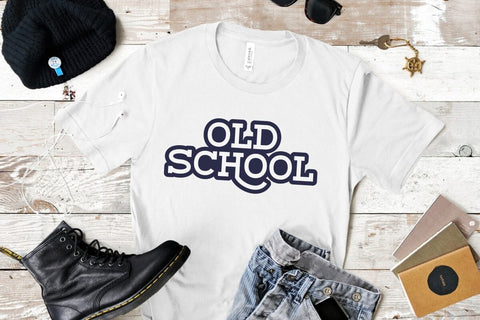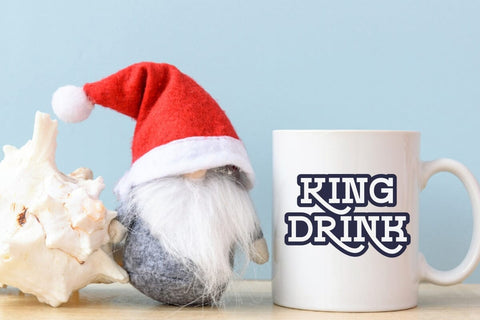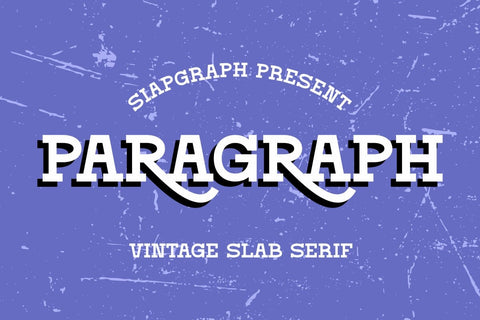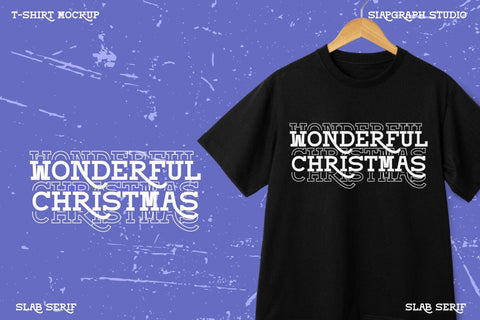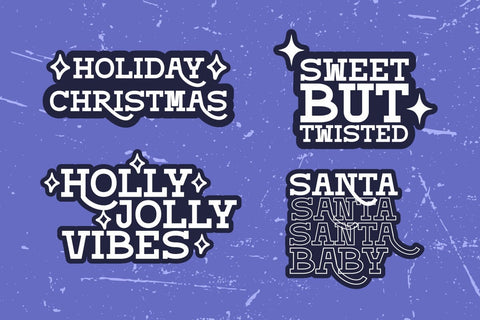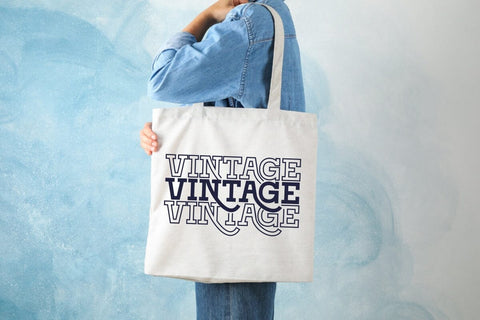
Paragraph - Vintage Slab Serif Font
Paragraph is a stylish and elegant vintage slab serif font inspired by a blend of Christmas celebration and modern design. Perfect for creating beautiful quotes, stickers, labels, Christmas cards, t-shirt mockups, mugs, and tote bags, Paragraph brings a timeless yet trendy touch to your holiday designs. It’s also ideal for social media content, offering a chic and versatile look for modern Christmas-themed projects.